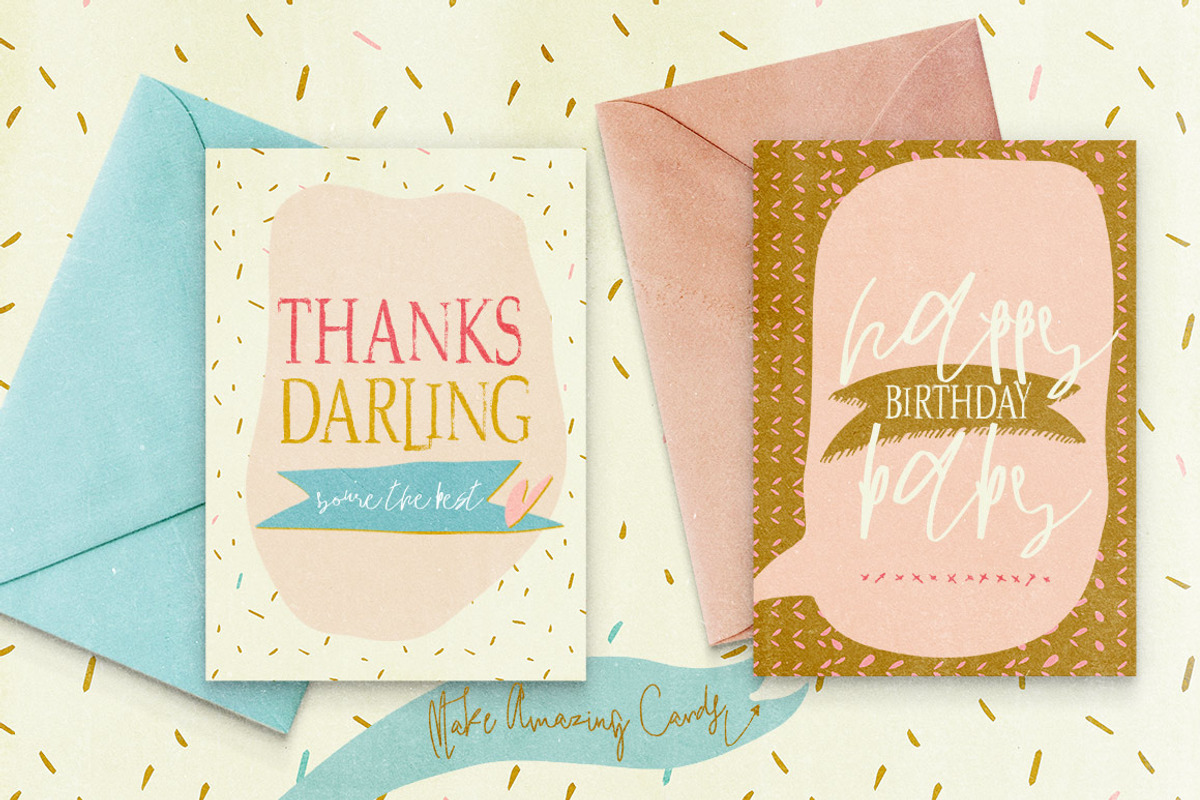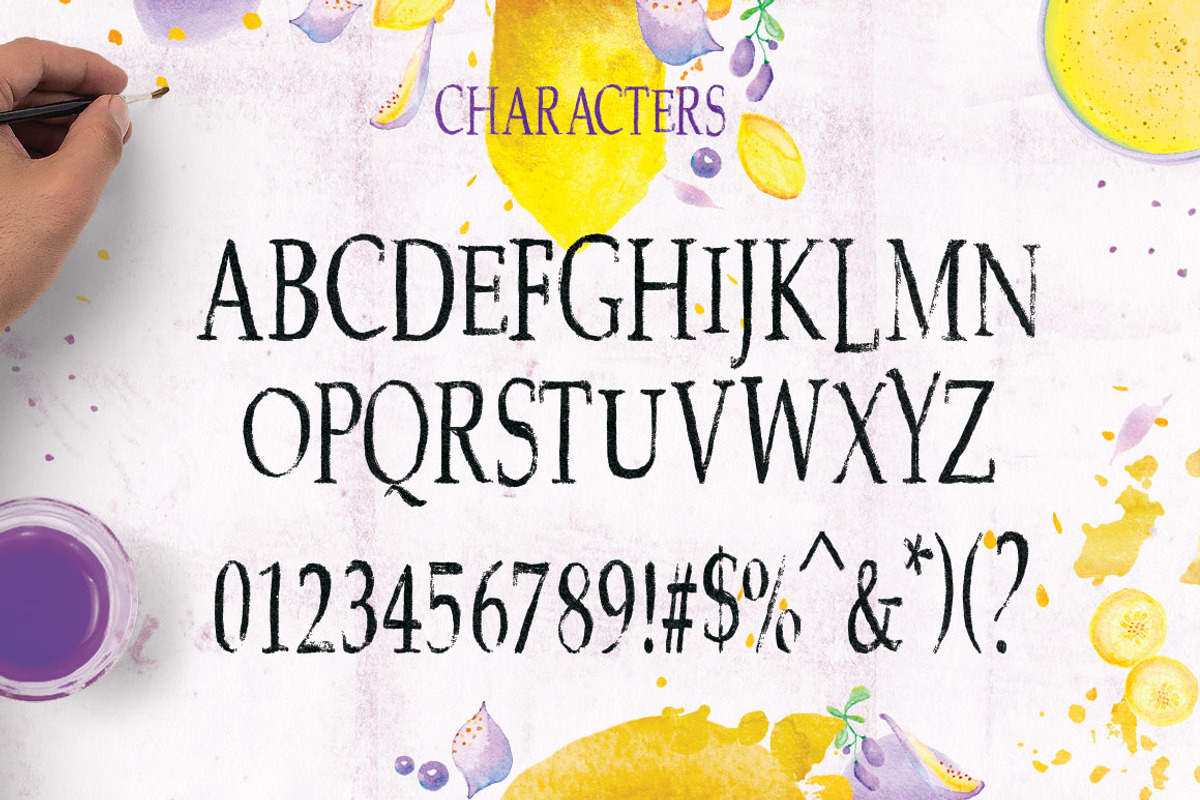
Lemonade Fizzo Serif Font
Lemonade Fizzo Serif Font by Creativeqube Design is a font selected for branding, posters, packaging, typography.
Why Lemonade Fizzo Serif Font is worth a look
Lemonade Fizzo Serif Font by Creativeqube Design fits naturally into Branding, posters, packaging, typography.